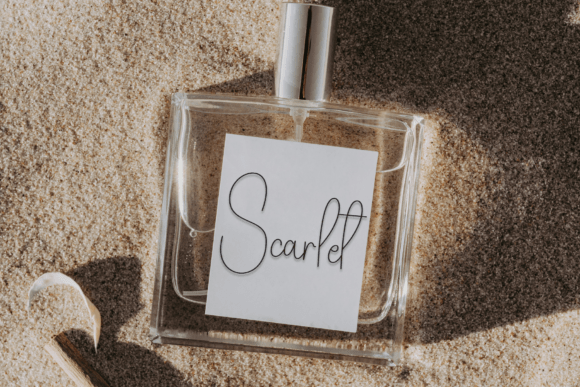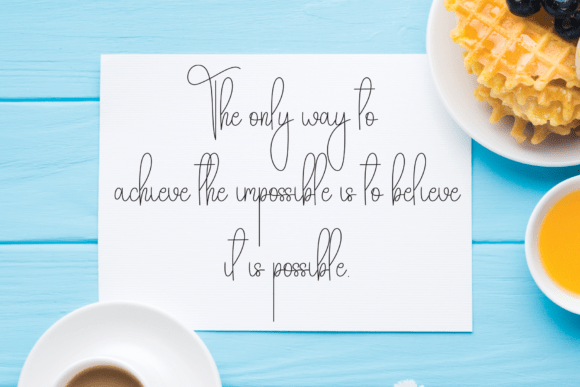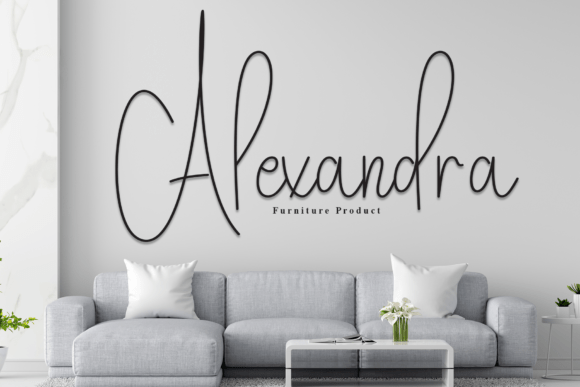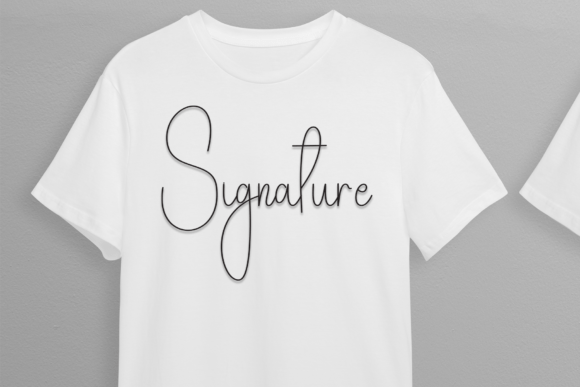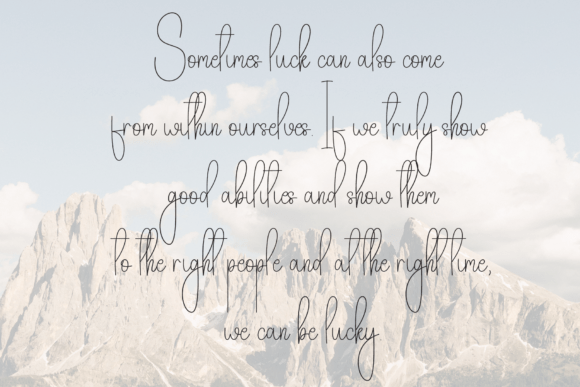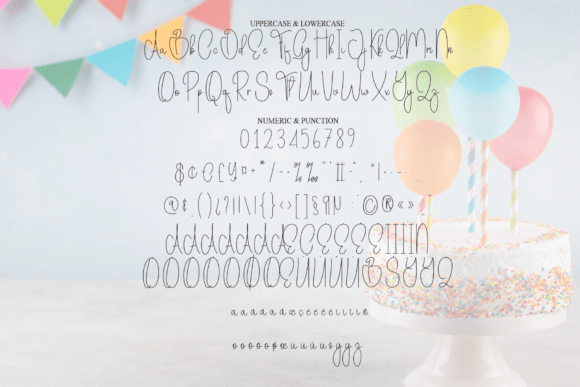
Introducing Birthday Font: The Ultimate Choice for Adding a Playful Touch to Your Designs
Are you tired of using the same old fonts for your design projects? Do you want to add a dash of fun and whimsy to your creations? Look no further than Birthday Font, a charmingly casual, handwritten display font that’s perfect for making your designs stand out. With its sweet and carefree style, this font is sure to infuse joy and playfulness into your work, making it an ideal choice for designers and crafters alike.
What Makes Birthday Font So Special?
Birthday Font is more than just a font – it’s an experience. Its handwritten style exudes warmth and friendliness, making it perfect for designs that require a personal touch. Whether you’re creating wedding invitations, greeting cards, or any other type of design that needs a playful twist, Birthday Font is the perfect choice. Its unique charm and character will add a touch of whimsy to your work, setting it apart from the rest.
As a designer or crafter, you know how important it is to have a font that can help you express your creativity and bring your ideas to life. Birthday Font is designed to be versatile and easy to use, making it perfect for a wide range of design projects. Whether you’re creating digital designs or printing physical copies, this font will look great and add a touch of personality to your work.
- Handwritten style: Birthday Font has a charmingly casual, handwritten style that’s perfect for adding a personal touch to your designs.
- Playful and whimsical: This font is designed to add a dash of fun and playfulness to your designs, making it perfect for projects that require a lighthearted touch.
- Versatile: Birthday Font can be used for a wide range of design projects, from wedding invitations to greeting cards and more.
Why Choose Birthday Font?
There are many fonts to choose from, but Birthday Font stands out from the rest. Here are just a few reasons why:
- Unique style: Birthday Font has a unique, handwritten style that’s unlike any other font on the market.
- High-quality design: This font is designed to be clear and easy to read, making it perfect for a wide range of design projects.
If you’re looking for a font that can add a playful touch to your designs, look no further than Birthday Font. With its charmingly casual, handwritten style and sweet, carefree personality, this font is sure to infuse joy and whimsy into your creative endeavors. Whether you’re a designer or crafter, Birthday Font is the perfect choice for any project that requires a dash of fun and personality.